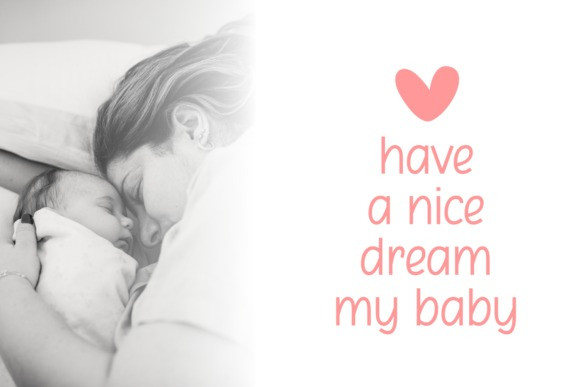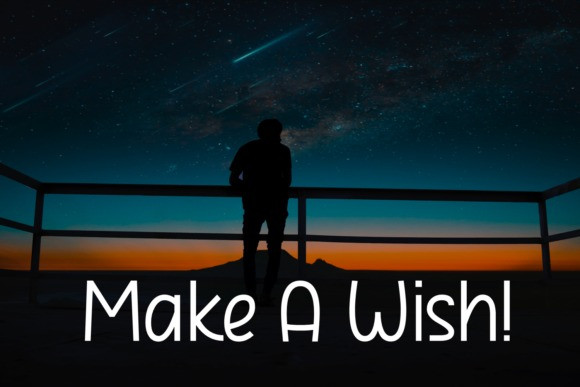
Alice Dream Font
Alice Dream Display Font is a cool, casual and adaptable handwritten font. It can easily be matched to an incredibly large set of projects, so add it to your creative ideas and notice how it makes them stand out!